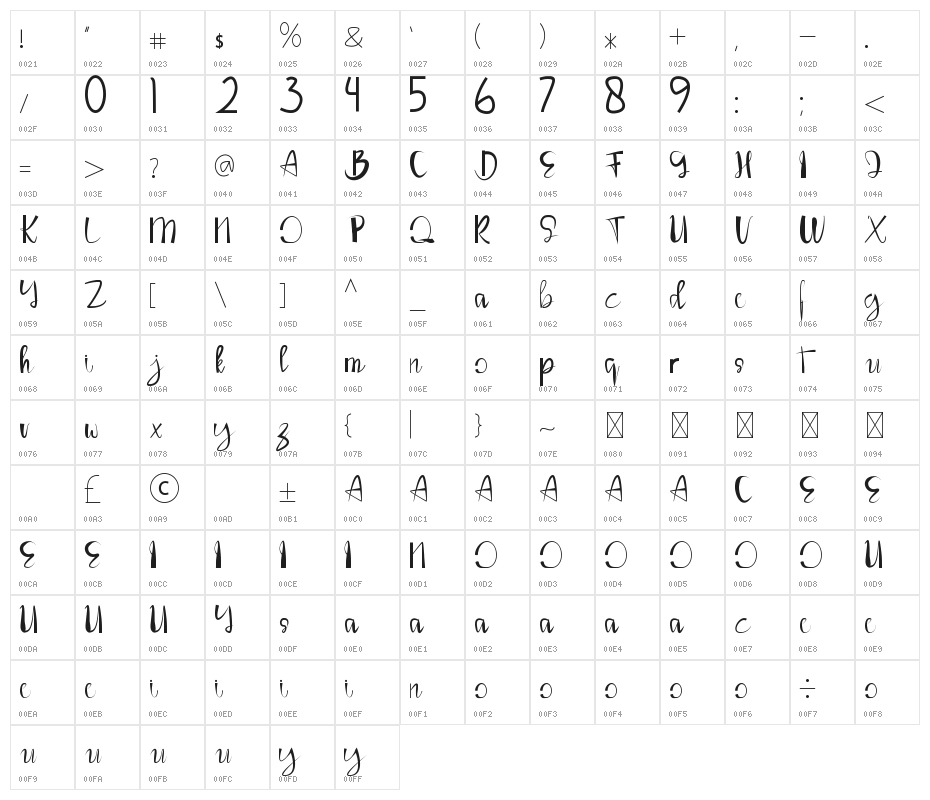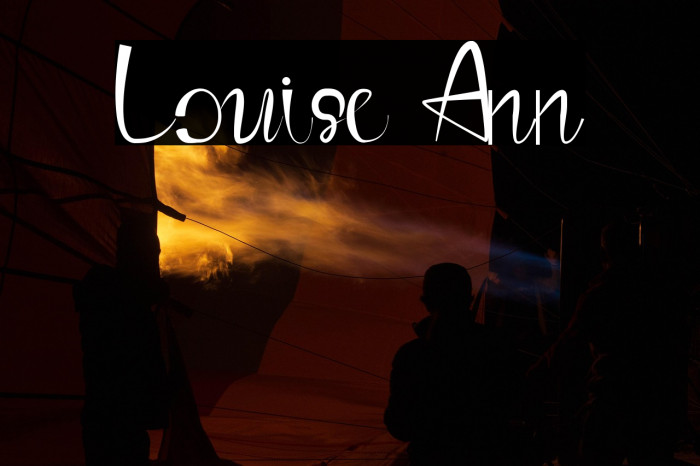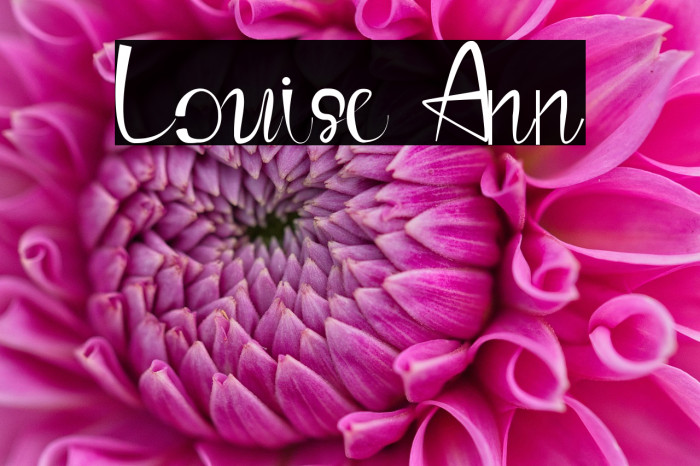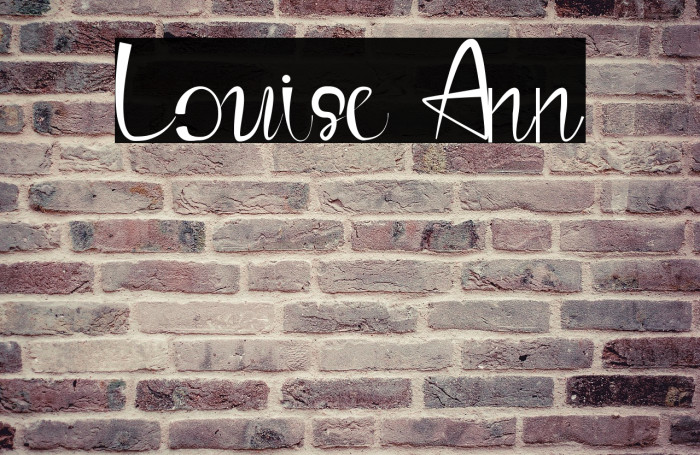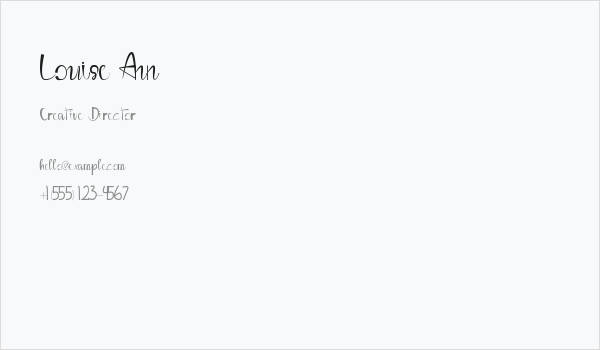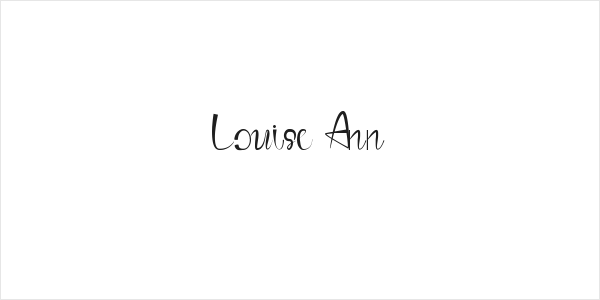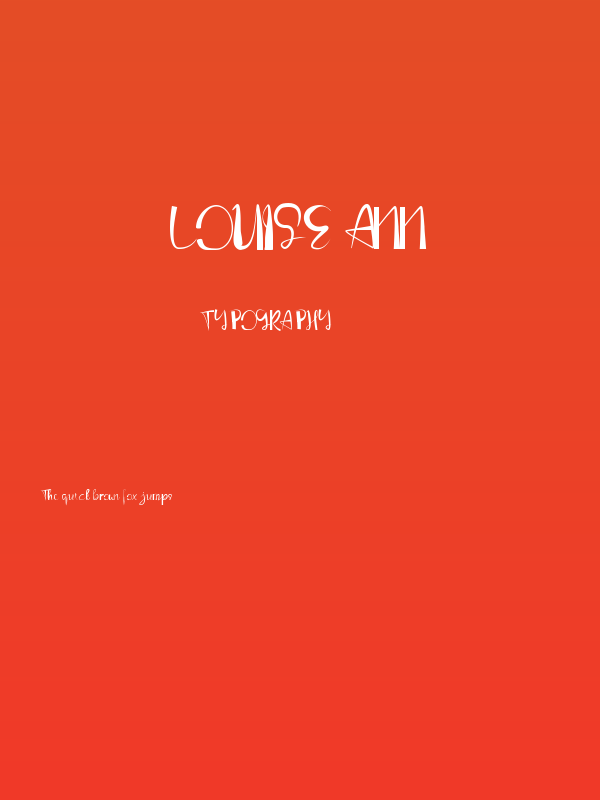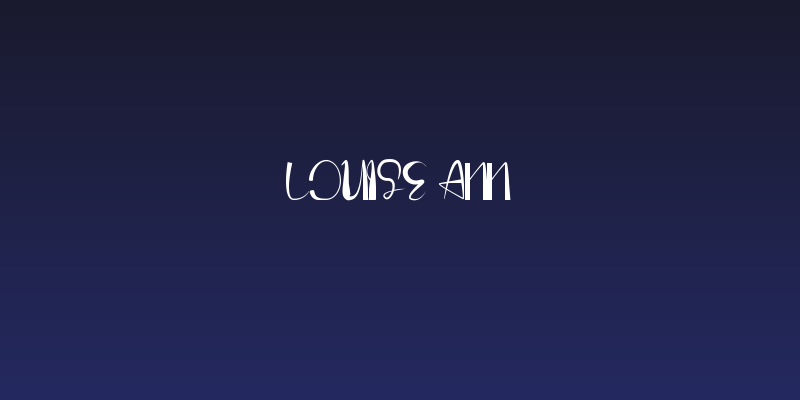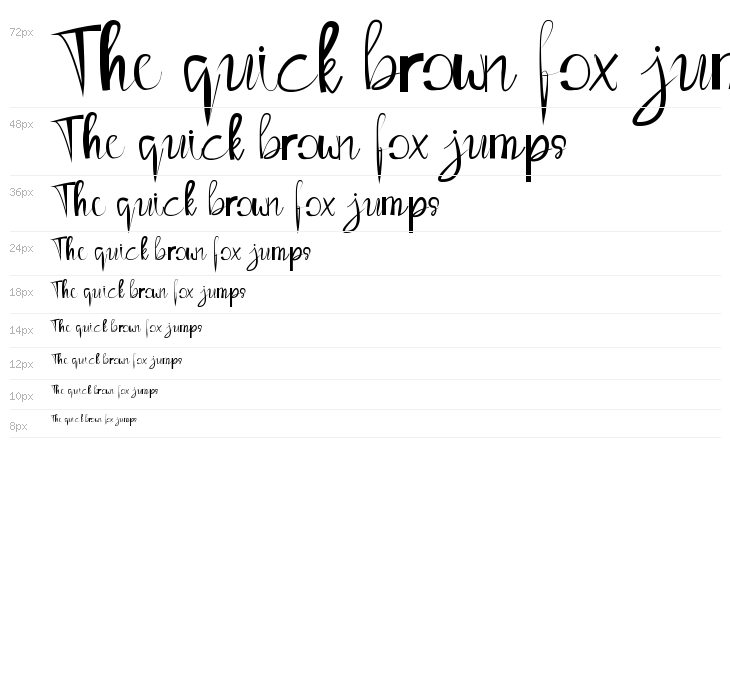
Louise Ann Font
Louise Ann Description
This font features a playful and whimsical design, characterized by its unique blend of script and decorative elements. The uppercase letters exhibit a bold and dynamic style with varying stroke widths, creating a sense of movement and energy. The lowercase letters maintain a more fluid and cursive appearance, adding a touch of elegance and charm. Numbers are bold and rounded, complementing the overall lively aesthetic. Special characters are creatively designed, enhancing the font's versatility for various creative projects.